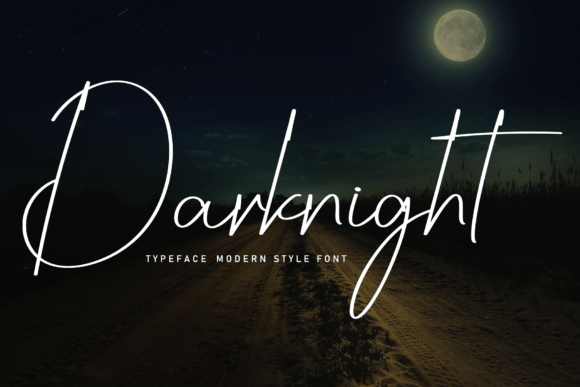
Journey to a realm of visual enchantment with Darknight Font, an enchanting handwritten masterpiece that captivates the heart and ignites creativity. Step into a world where elegance meets innovation, where timeless charm blends seamlessly with contemporary flair.
Crafted with meticulous care by the talented andikastudio, Darknight Font stands as a testament to the power of typography. Its strokes dance across the page like a symphony of ink, painting a picture of pure artistry. Experience the allure of this script font, designed to elevate your projects to heights of sophistication and allure.
Indulge in the beauty of Darknight Font's graceful curves and delicate details. Each letter is a work of art, infused with personality and panache. Whether you're a fashion blogger seeking to captivate your audience or a designer yearning for an enchanting touch, Darknight Font is your muse, your guiding star in the realm of visual expression.
Immerse yourself in a world where imagination thrives, where words come alive with newfound meaning. Let Darknight Font be your creative companion, guiding you towards masterpieces that resonate with your audience. Experience the thrill of crafting designs that whisper elegance, designs that leave an indelible mark on the hearts and minds of those who encounter them.
Embrace the allure of Darknight Font and embark on a journey of creative enlightenment. Allow its magic to transform your projects, to elevate your brand to new heights of distinction. Step into the spotlight, armed with the power of Darknight Font, and let your creations shine brighter than ever before.